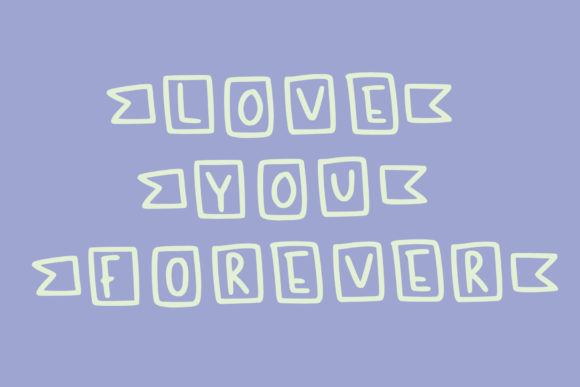
Feast your eyes on the resplendent Fun Decorative Dingbats Font, a symphony of artistic expression brought to you by the creative minds at goodigital. This decorative font family is not just a mere collection of characters; it's a gateway to a world where imagination and creativity dance together. With its playful and charming vibe, the Fun Decorative Dingbats Font is the perfect companion for your next art exhibition, poster design, or any project that begs for a touch of whimsy and delight.
Dive into a sea of artistic possibilities with the Fun Decorative Dingbats Font. Let your imagination run wild as you craft eye-catching posters, vibrant invitations, or stunning social media graphics. This font is a true chameleon, effortlessly adapting to any theme or style, bringing your vision to life with a dash of playfulness and a sprinkle of charm.
Envision the vibrancy of your art exhibition posters, adorned with the Fun Decorative Dingbats Font. The playful glyphs will dance across the page, inviting viewers to embark on a journey of artistic exploration. Its whimsical nature will capture their attention, leaving them spellbound by the beauty of your creations.